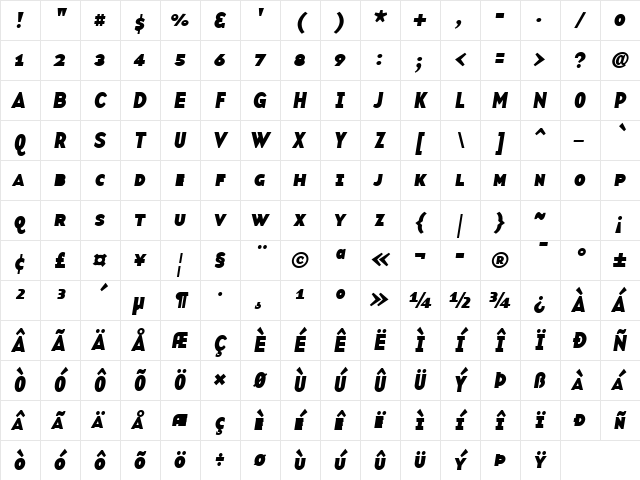
BaseTwelveSansSCBI Regular Free Font
BaseTwelveSansSCBI Regular
Design Context for BaseTwelveSansSCBI
BaseTwelveSansSCBI is a composed and adaptable typeface that performs quietly and consistently across a wide range of design contexts.